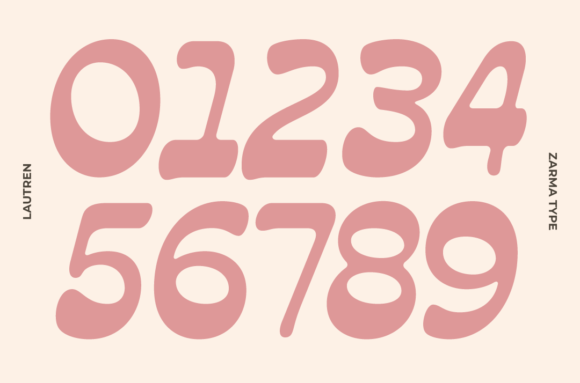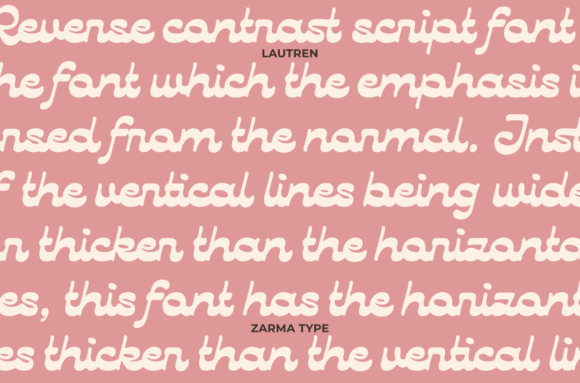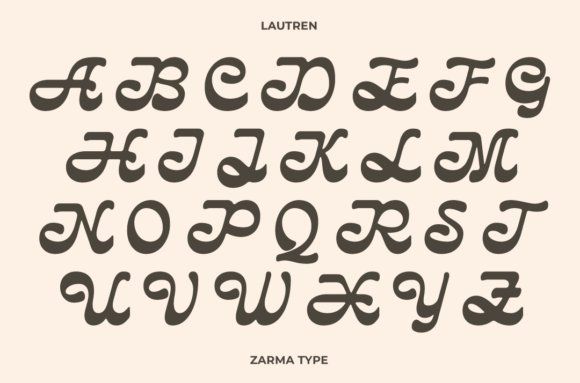
Introduction to Lautren Font
As a designer, there’s nothing quite like the thrill of stumbling upon the perfect font for a creative project. You’ve spent hours scouring design resources, searching for that elusive combination of style and sophistication. And then, it happens – you lay eyes on the Lautren Font, and everything clicks into place. With its bold, handwritten charm, this font is the perfect addition to any design.
Whether you’re working on a high-profile branding project or a personal passion project, the Lautren Font is a valuable asset to have in your toolkit. Its transparent background and high-quality design make it a versatile choice for a wide range of creative applications. And the best part? It’s available for free download, making it an accessible resource for designers of all levels.
Key Features of Lautren Font
- High-quality design resource with a transparent background, ideal for creative projects.
- Comes in a single size, making it easy to use in a variety of design applications.
- Designed with a modern aesthetic, making it perfect for contemporary design projects.
Honest Review: Lautren Font
As a designer, I’m always on the lookout for high-quality design resources to elevate my creative projects. The Lautren Font caught my attention, and I’m excited to share my honest review.
- High-quality typography: The Lautren Font boasts clean lines, smooth curves, and a modern feel that’s perfect for contemporary designs.
- Limited character set: While the font is free, it’s only available in a limited character set, which may not be suitable for complex designs or languages that require a wider range of characters.
Overall, the Lautren Font is a solid choice for designers looking for a high-quality, modern font to use in their creative projects. While it has some limitations, its clean design and transparent background make it a great addition to any design resource collection.
Tips for Getting the Most Out of Lautren Font
Use the Lautren Font in conjunction with other design resources, such as graphics and images, to create a visually appealing design. Experiment with different font sizes, colors, and styles to add depth and interest to your creative project. Consider using the font on a transparent background to give your design a modern and sleek look.
Alternatives to Lautren Font
Great Vibes Font is a high-quality, elegant script font that’s perfect for creative projects that require a touch of sophistication. It’s ideal for wedding invitations, branding, and any design that needs a delicate, handwritten feel.
Compared to Lautren Font, Great Vibes Font has a more refined and polished look, making it suitable for formal and professional designs. However, it lacks the quirky, playful vibe of Lautren Font, which makes it less versatile for casual and creative projects.
Alex Brush Font is a beautiful, handwritten font that’s great for designers looking for a high-quality, transparent background font. It’s perfect for creative projects that require a personal and emotional touch, such as typography-based designs and branding.